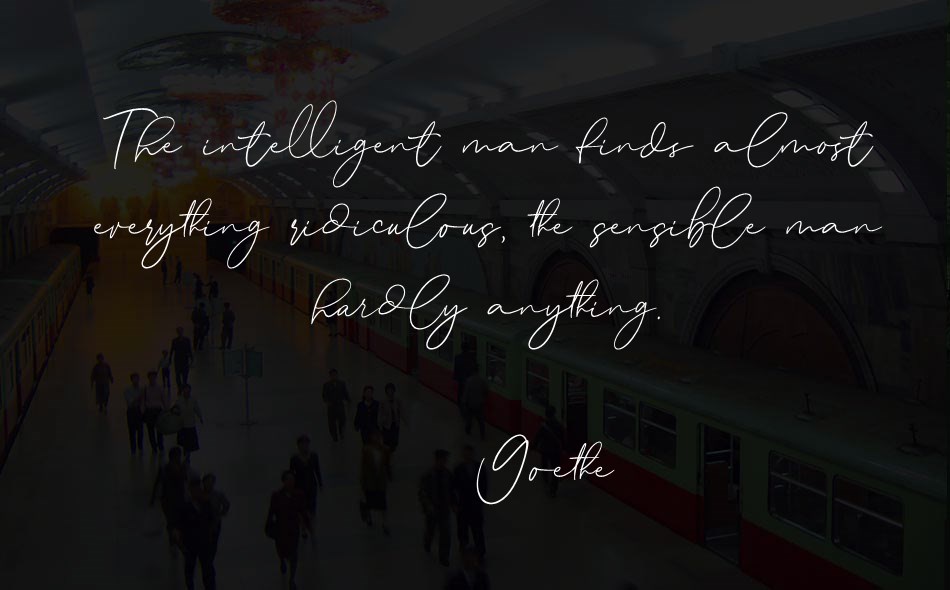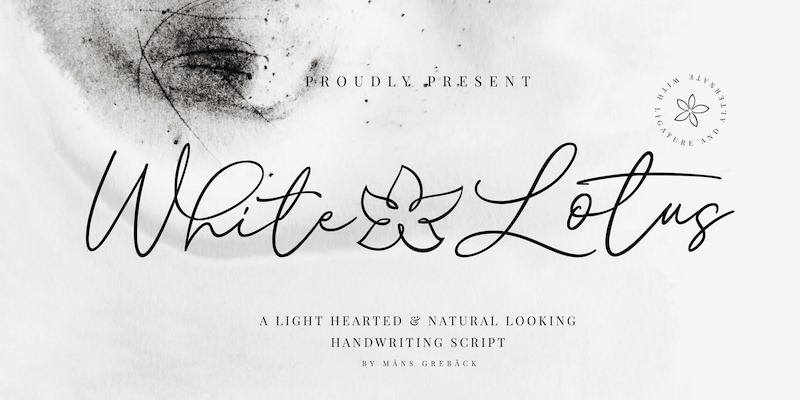
White Lotus font
Use underscore _ to make an underline swash.
Example: Love_letter
Use asterisk * to make a flower.
Example: White*Lotus
Use multiple underscores and asterisks to make different underlines and flowers.
Hand______writer***
White Lotus is a beautifully wild handwriting typeface.
This thin script font will give any project the attention it deserves. Use it for a vivid logotype or cute headline to give your work that extravagant look.
Use underscore _ to make an underline swash. Example: Love_letter
Use asterisk * to make a flower. Example: White*Lotus
Use multiple underscores and asterisks to make different underlines and flowers. Hand______writer***
The White Lotus family consists of the styles Regular as well as two Alternate styles. It comes in the weights Regular and Black, and each font as Italic. Together making up a package of 12 high-quality fonts.
The font is built with advanced OpenType functionality and has a guaranteed top-notch quality, containing stylistic and contextual alternates, ligatures and more features; all to give you full control and customizability. It has extensive lingual support, covering all Latin-based languages, from Northern Europe to South Africa, from America to South-East Asia. It contains all characters and symbols you'll ever need, including all punctuation and numbers.